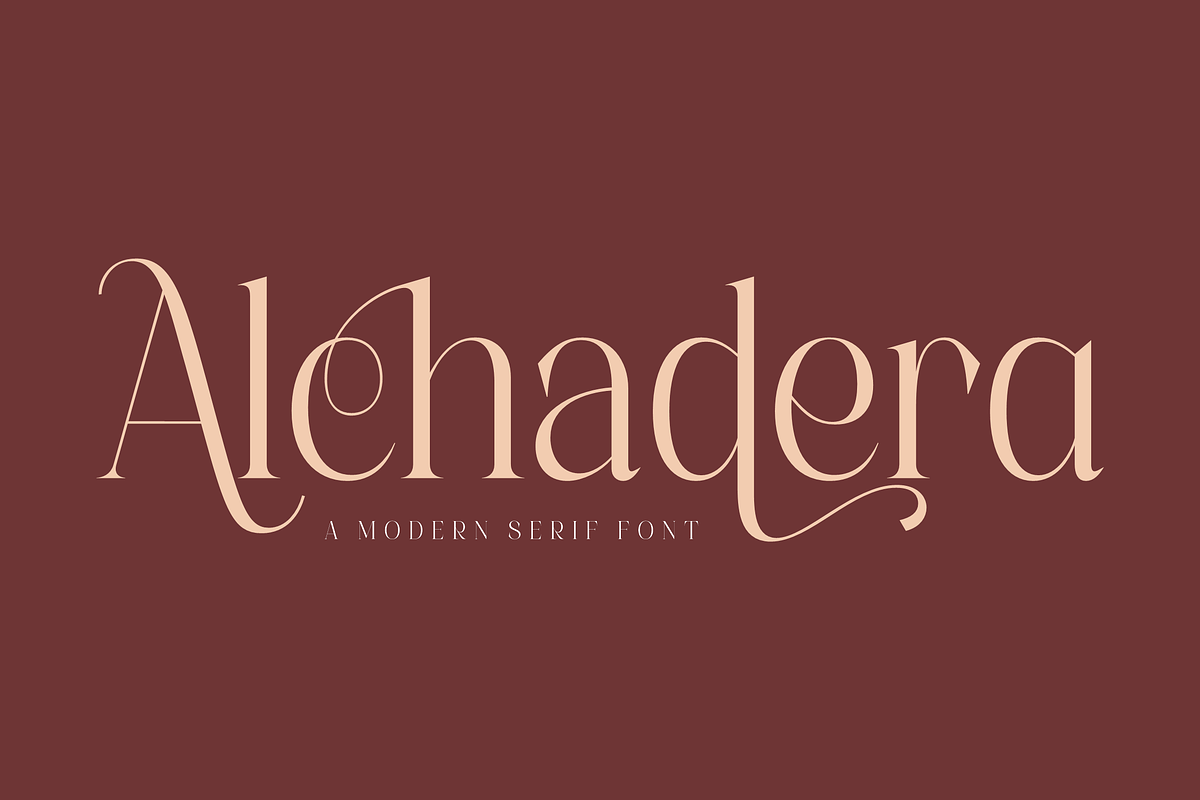
Alchadera – A Modern Serif Font Free Download is a sleek and stylish typeface that blends traditional serif structure with a clean, contemporary twist. With its sharp serifs, balanced proportions, and elegant details, this font is ideal for branding, editorial layouts, luxury packaging, and website headers that require a modern, high-end look.
Alchadera – A Modern Serif Font Free Download delivers both professionalism and personality, making it a favorite for designers who want to convey sophistication without sacrificing readability. Its versatility allows it to shine in both large headlines and refined body text.
Whether you’re designing for fashion, tech, or lifestyle brands, this font adds a polished and confident voice to your work. Try it in personal projects or mockups for free, but a commercial license is required for professional use. Upgrade your visual identity with the refined elegance of Alchadera.